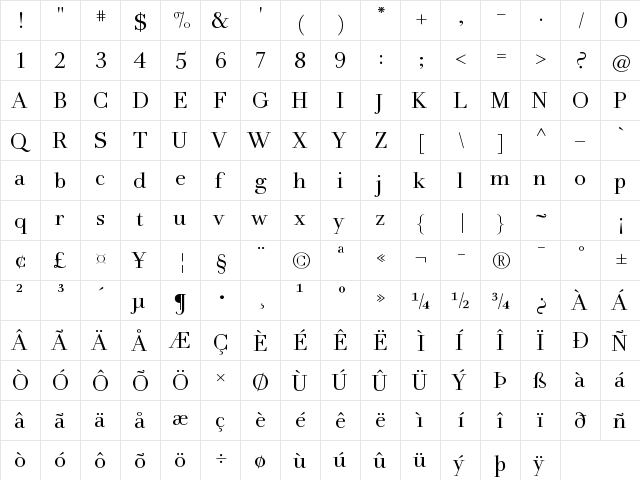
Andrade Pro Regular Font Preview
Andrade Pro Regular
Andrade Pro Regular Font Details
| Foundry | Dino dos Santos _DSType |
| Designer | Dino dos Santos |
Design Context for Andrade Pro Typeface
Andrade Pro offers clean, dependable letterforms without strong stylistic allegiance, making it a practical choice for designers who need flexibility.